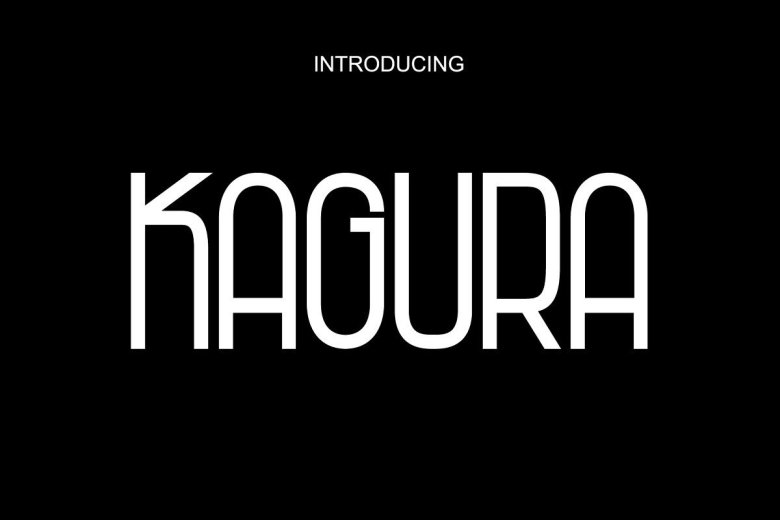
Kagura Sans Serif Font
Introducing Kagura Font. Kagura is a sans serif with high letters and a sexy look. It can be used for every design that needs a cheerful, sexy and elegant look. This font are perfect for your blog. Also with their help, you can create a logo or beautiful frame for your home. Or just use for your small business, book covers, stationery, marketing, magazines and more.